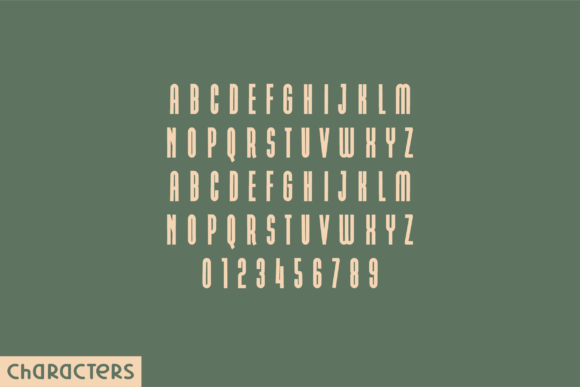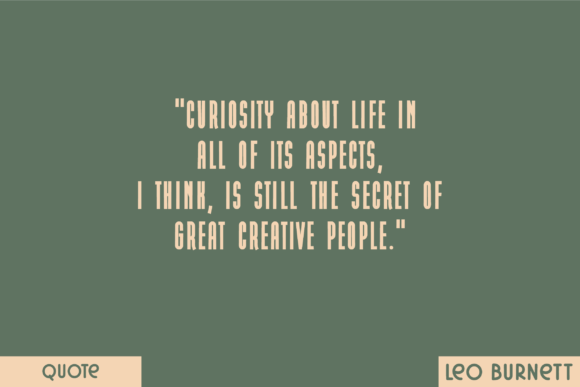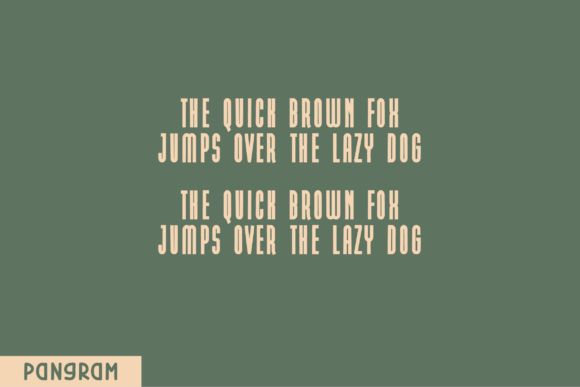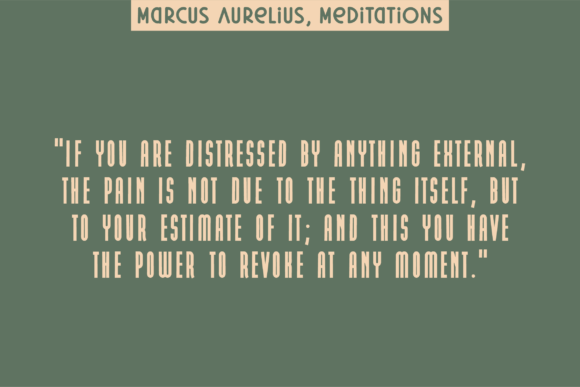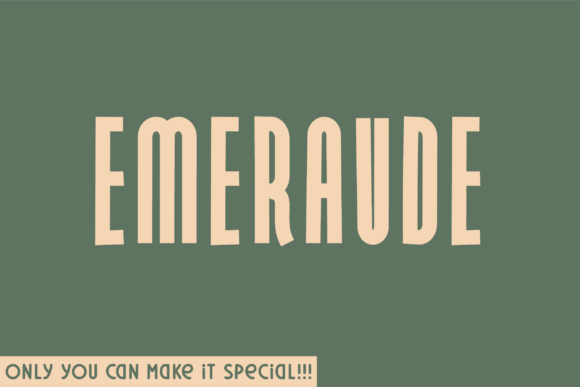
Discover the Elegant Simplicity of Emeraude Font
In the world of typography, few fonts manage to strike a balance between style and functionality as effortlessly as Emeraude. This sans serif display font is a masterclass in elegant simplicity, making it an excellent choice for designers and crafters looking to elevate their projects with a touch of sophistication. In this article, we’ll delve into the unique characteristics of Emeraude, exploring its design, features, and uses, as well as provide tips on how to make the most of this versatile typeface.
The Design Philosophy Behind Emeraude
Emeraude’s design is built around a paradox: it’s a font that combines hard-edged uppercase letters and numbers with a whisper of natural handwriting. On the surface, Emeraude appears to be a conventional sans serif font, perfect for designs that require a sense of authority and professionalism. However, upon closer inspection, you’ll notice a subtle nuance that sets Emeraude apart from its peers. Each character has been carefully crafted to incorporate a hint of handwriting, adding a touch of warmth and personality to an otherwise firm structure.
Key Features of Emeraude Font
- Sans Serif Design: Emeraude boasts a clean, sans serif design that ensures clarity and legibility, even at larger font sizes.
- Hard-Edged Uppercase Letters and Numbers: The font’s uppercase letters and numbers feature a crisp, hard-edged design that exudes confidence and authority.
- Whisper of Natural Handwriting: A subtle hint of handwriting in each character adds a touch of warmth and organic appeal to the font.
- Elegant Simplicity: Emeraude’s design philosophy is centered around elegant simplicity, making it perfect for designs that require a sophisticated look without being too ornate.
Who is Emeraude Font Perfect For?
Emeraude is an excellent choice for designers and crafters who want to add a touch of natural authenticity to their projects. Whether you’re working on a branding project, a website design, or a print project, Emeraude’s unique blend of style and functionality makes it an excellent choice. Here are a few examples of projects that would benefit from Emeraude:
- Branding and Logo Design: Emeraude’s elegant simplicity and hint of handwriting make it perfect for logos and branding projects that require a touch of sophistication.
- Website Design: The font’s clean design and excellent legibility make it an excellent choice for website design, particularly for headings and titles.
- Print Design: Emeraude is perfect for print projects, such as brochures, flyers, and business cards, where a touch of elegance and sophistication is required.
Tips for Using Emeraude Font
To get the most out of Emeraude, here are a few tips to keep in mind:
- Use it as a Display Font: Emeraude is designed to be used as a display font, so use it to create headings, titles, and other prominent text elements.
- Experiment with Font Sizes: Emeraude’s design looks great at a range of font sizes, so experiment with different sizes to find the one that works best for your project.
- Pair it with Other Fonts: Emeraude pairs well with other sans serif fonts, as well as serif fonts with a natural, handwritten feel.
Emeraude font is a versatile and elegant typeface that offers a unique blend of style and functionality. Its hard-edged uppercase letters and numbers, combined with a whisper of natural handwriting, make it perfect for designs that crave a touch of natural authenticity. Whether you’re a designer or crafter, Emeraude is an excellent choice for projects that require a sophisticated look without being too ornate. With its clean design, excellent legibility, and hint of handwriting, Emeraude is sure to become a go-to font in your typography arsenal.